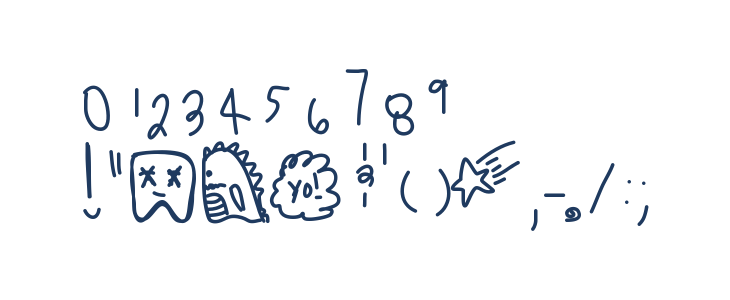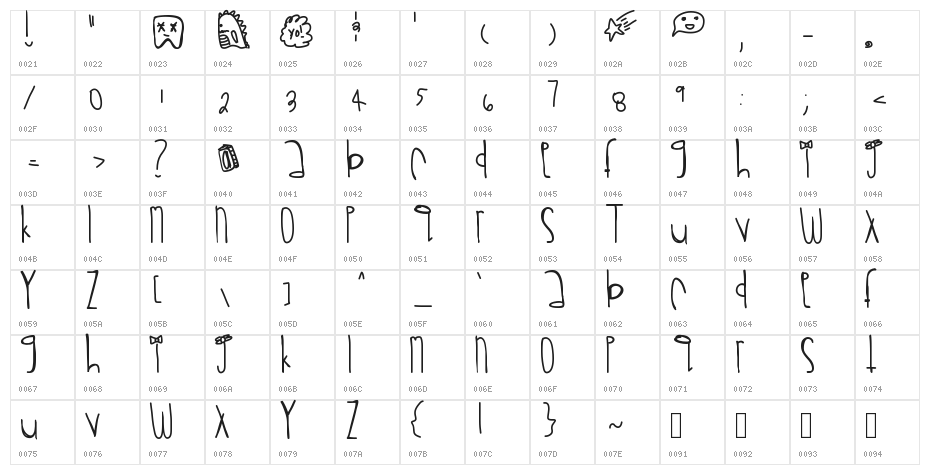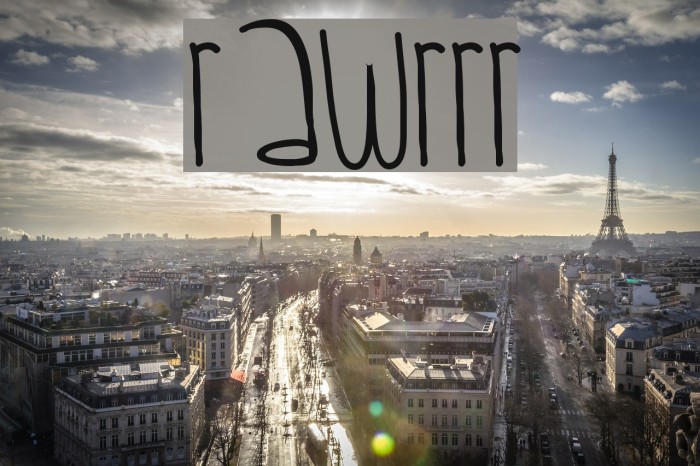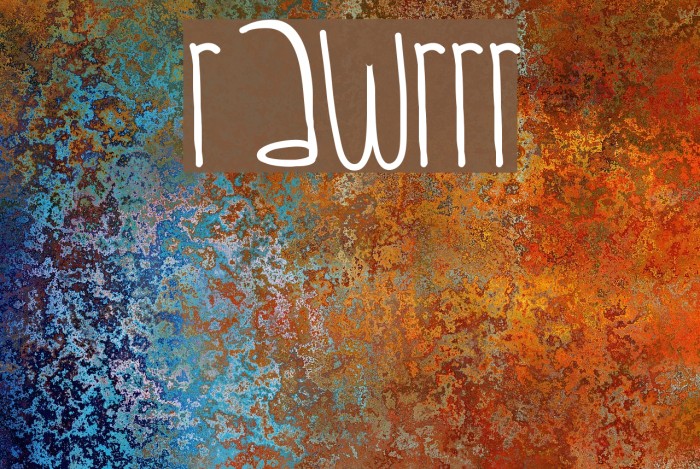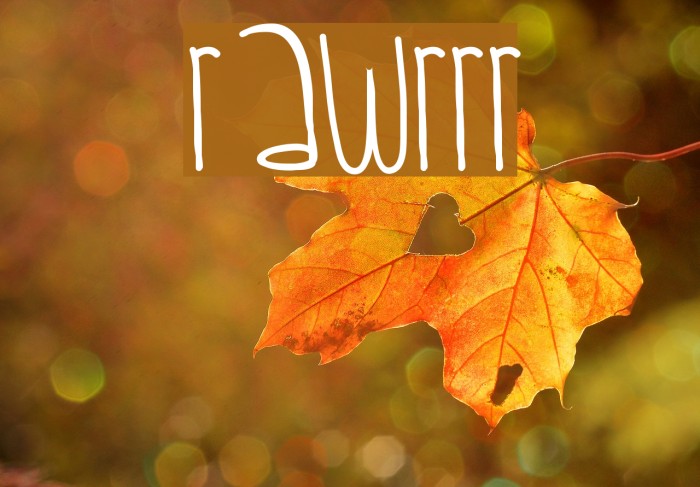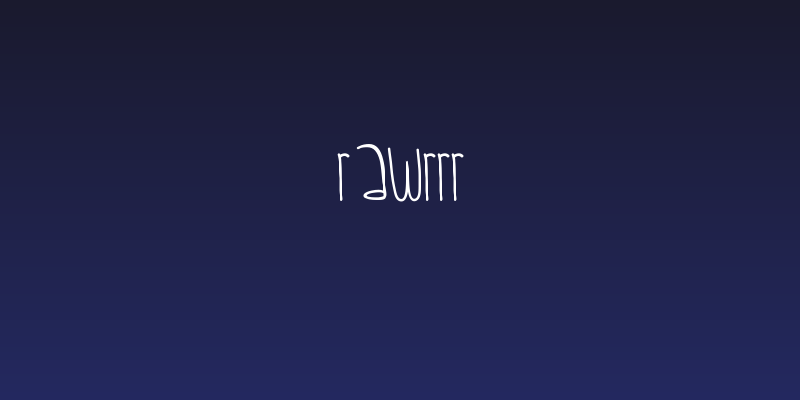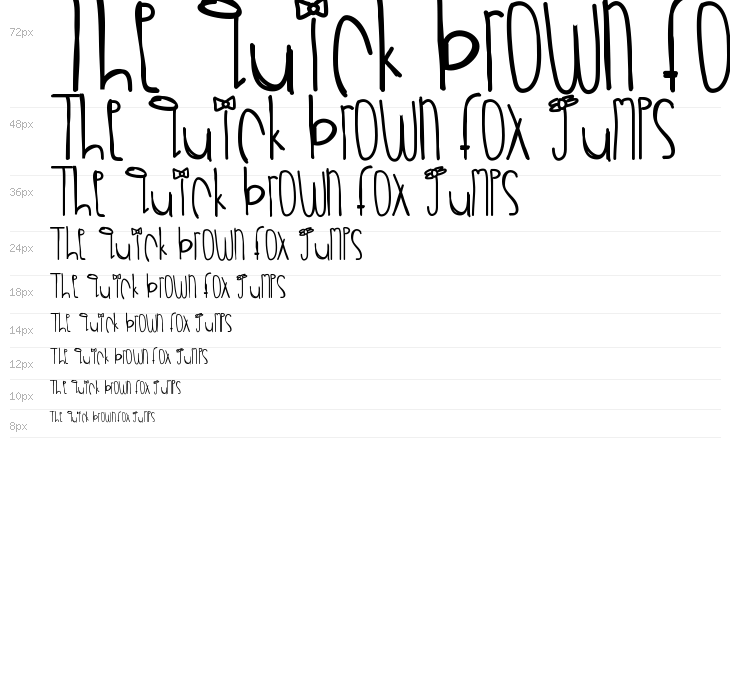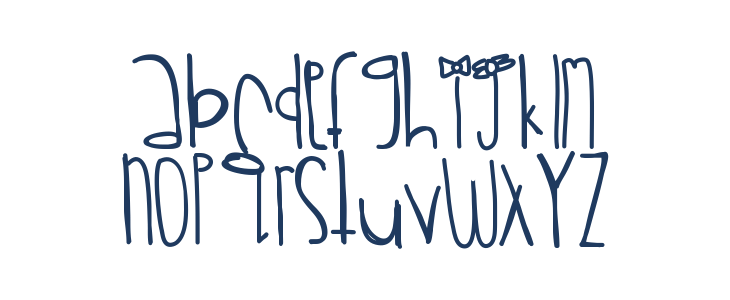
Rawrrr Font
Rawrrr Description
This playful and whimsical font features tall, narrow letters with a hand-drawn appearance. The characters are slightly irregular, adding a quirky and fun vibe. The uppercase and lowercase letters maintain a consistent style, with rounded edges and a casual flow. Numbers are similarly styled, with a touch of creativity in their form. Special characters include expressive symbols and doodles, enhancing the font's playful nature. This font is ideal for projects that require a lighthearted and informal touch, such as children's books, comic strips, or playful branding.
| Proposed Projects | Children's books, comic strips, playful branding, greeting cards. |